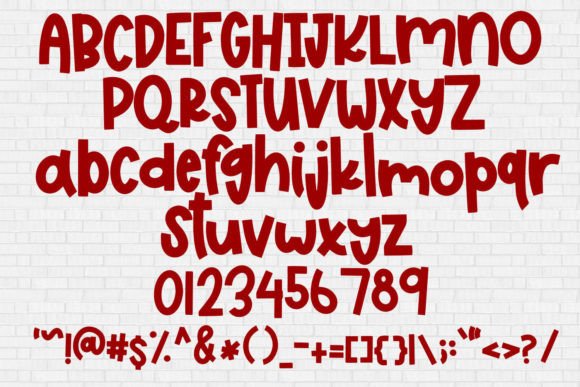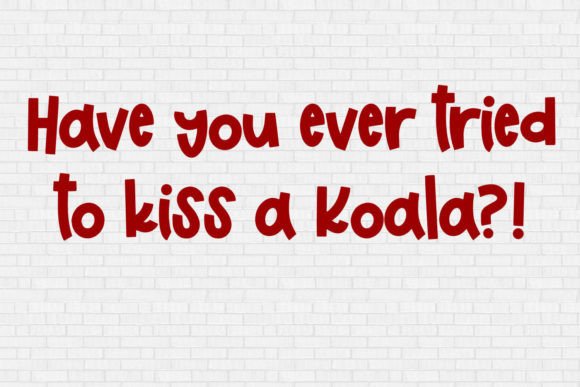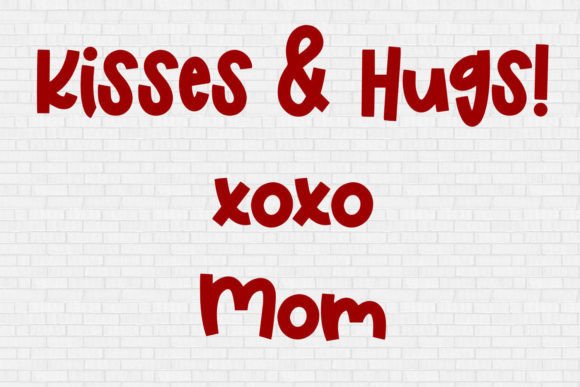
Introduction to Koala Kisses Font
Have you ever been in the middle of a creative project, struggling to find the perfect font to bring your vision to life? The cursor blinks away, and your mind goes blank as you scroll through endless font options. But then, suddenly, you stumble upon it – a font that speaks to your design soul. For many designers, that font is the Koala Kisses Font, a fun, chunky, square handwritten font that adds a touch of whimsy to any project.
The Koala Kisses Font is more than just a design element – it’s a game-changer. With its high-quality, transparent background, it’s perfect for designers who want to add a personal touch to their work. Whether you’re creating a custom water bottle design or a notebook for a special occasion, the Koala Kisses Font is sure to make it stand out. And the best part? It’s available for free download, making it an invaluable resource for designers of all levels.
Key Features of Koala Kisses Font
- Unique and Whimsical Design: Koala Kisses Font features a playful and adorable design that is perfect for creative projects, adding a touch of fun and personality to any design.
- High-Quality Graphics: Koala Kisses Font is designed with high-quality graphics, ensuring a crisp and clear display, even at larger sizes.
- Large Character Set: Koala Kisses Font includes a large character set, including uppercase and lowercase letters, numbers, and punctuation marks, making it suitable for a variety of design applications.
- Resolution: The font is designed to be resolution-independent, ensuring that it looks great at any resolution, from low-resolution displays to high-resolution prints.
Honest Review: Koala Kisses Font
I recently stumbled upon the Koala Kisses Font and was excited to dive in and see what it had to offer. As a designer, I’m always on the lookout for new and high-quality design resources to enhance my creative projects.
One of the things that stood out to me about the Koala Kisses Font is its whimsical and playful feel. The font is perfect for projects that require a touch of fun and personality. I also appreciate that it’s available as a free download, making it an excellent resource for designers on a budget.
Here are some of the things that work well about the Koala Kisses Font:
- ✨ Unique and playful design
- ✨ Transparent background, making it easy to customize
- ✨ High-quality design, suitable for a variety of creative projects
- ⚠️ Limited font styles and variations
- ⚠️ Not ideal for formal or professional projects
Overall, I’m impressed with the Koala Kisses Font and would recommend it to designers looking for a fun and creative design resource. While it may not be suitable for all projects, it’s a great addition to any design library.
Use the Koala Kisses Font in conjunction with a transparent background to create a unique and eye-catching design. Experiment with different font sizes and styles to add depth and interest to your project. This font is perfect for creating a whimsical and playful atmosphere in your design.
Common Use Cases for Koala Kisses Font
The Koala Kisses Font is ideal for use in children’s book illustrations, nursery decor, and other creative projects that require a playful and whimsical touch. It’s also perfect for use in branding and marketing materials that need a unique and eye-catching font.